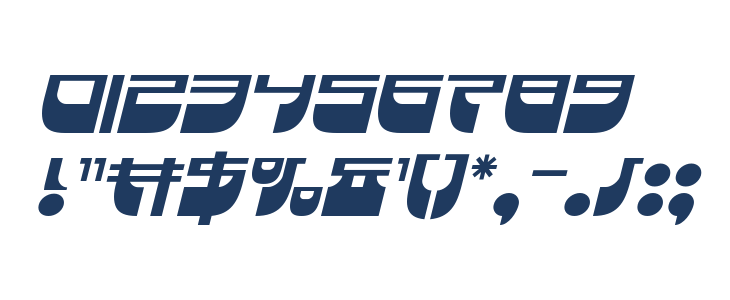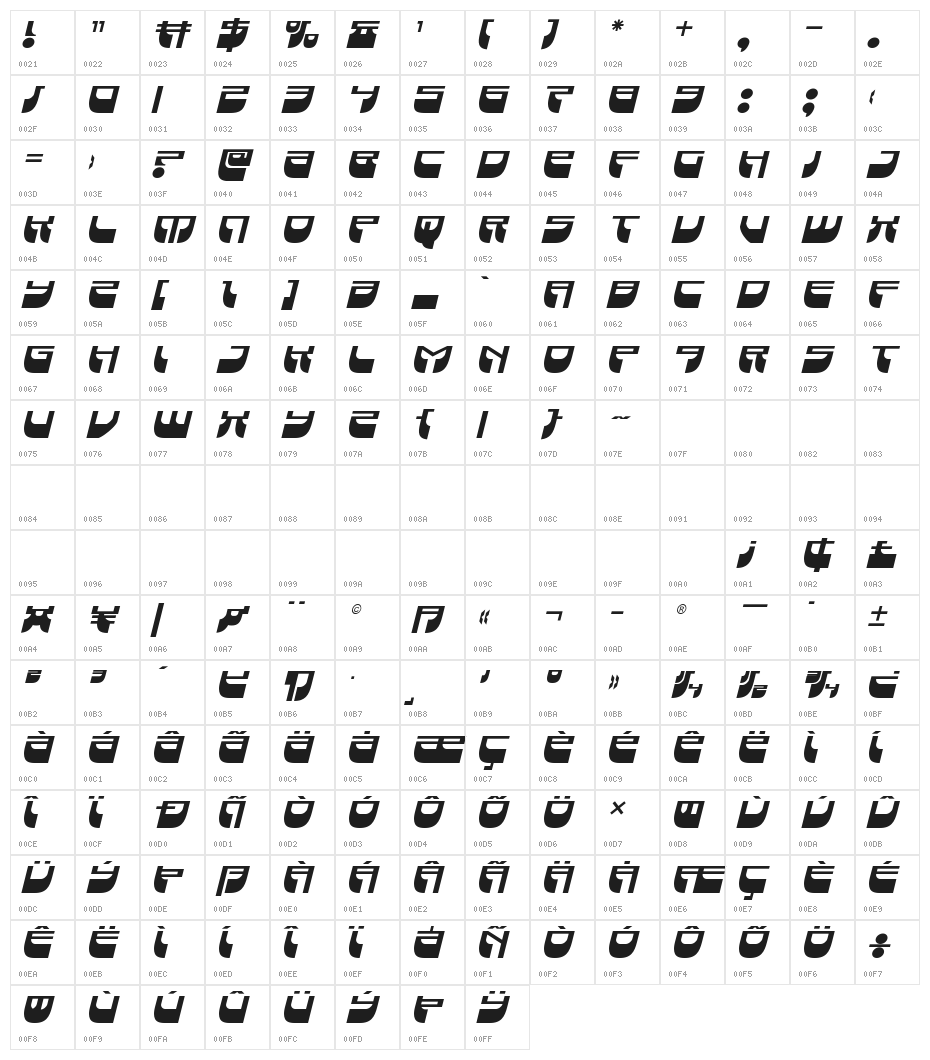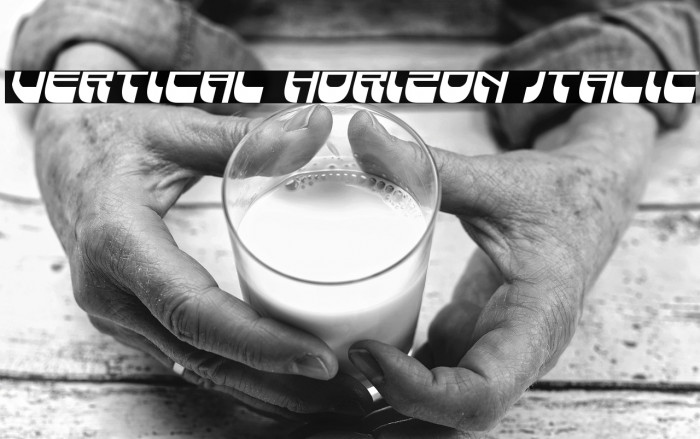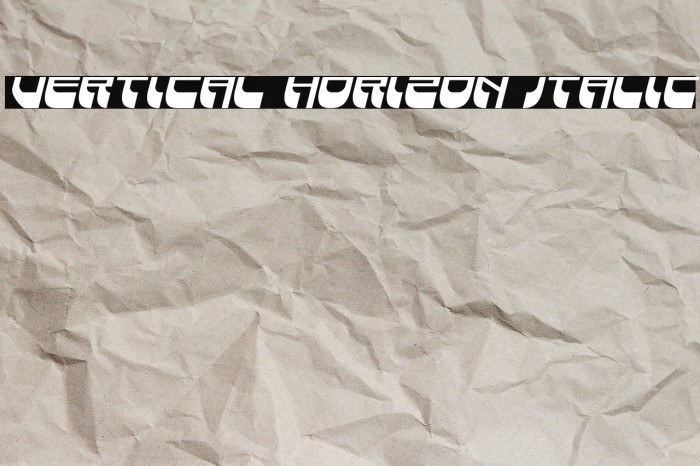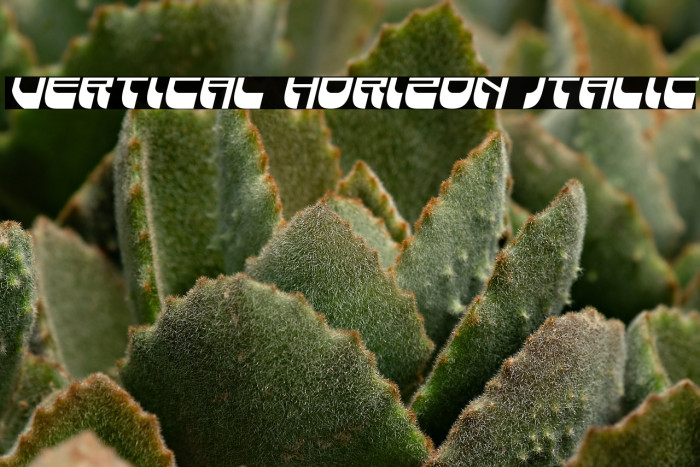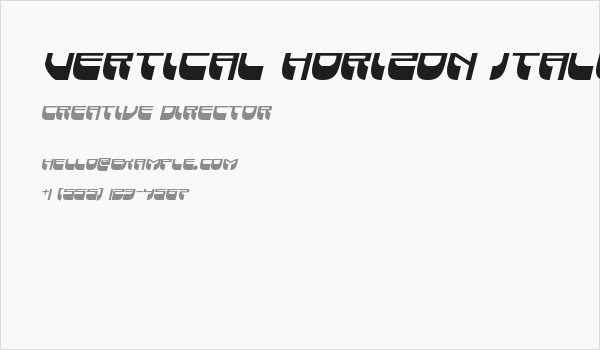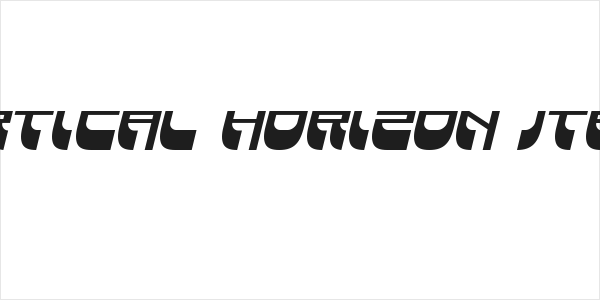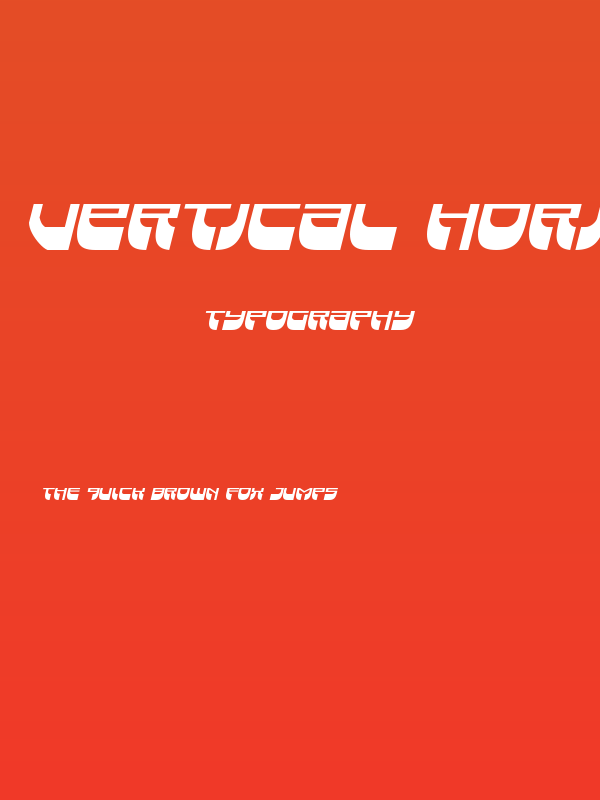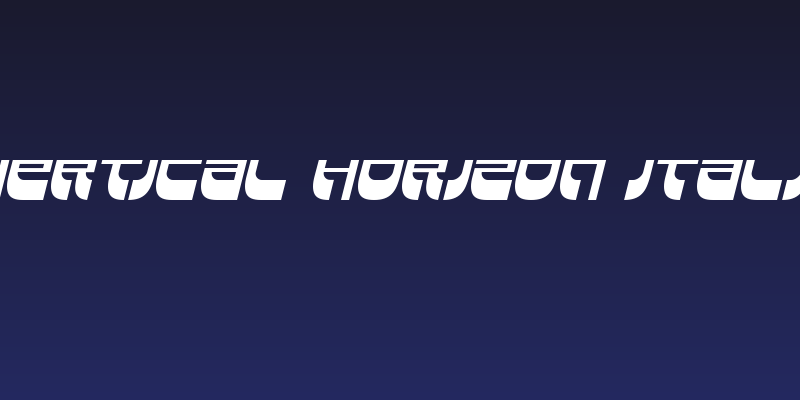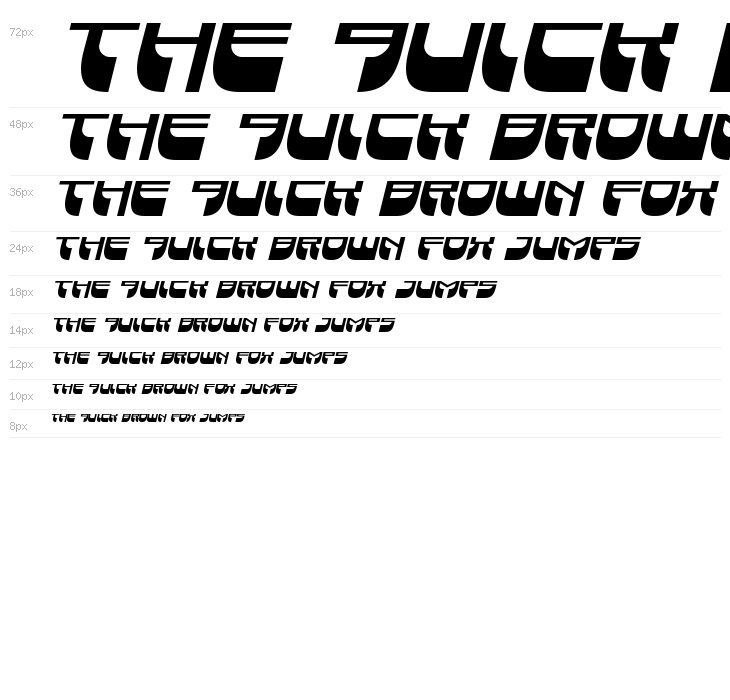
Vertical Horizon Italic Font
Vertical Horizon Italic Description
This font features a bold and futuristic design with a strong emphasis on geometric shapes and sharp angles. The characters are italicized, giving a sense of motion and speed. The uppercase and lowercase letters maintain a consistent style, with the lowercase letters slightly smaller but equally dynamic. The numbers and special characters follow the same design principles, ensuring uniformity across all glyphs. The font's unique style makes it stand out, with a modern and edgy appearance that is both eye-catching and memorable.
| Proposed Projects | Ideal for sci-fi themed projects, technology branding, video game titles, and futuristic posters. |